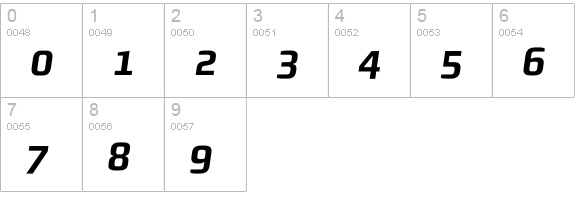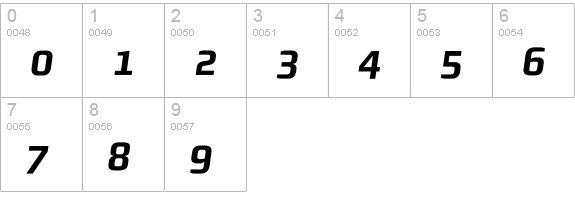
MorganSnExpert Bold Oblique is a strong, high-contrast, italic variant in the MorganSnExpert typeface family \xE2\x80\x94 well suited to headlines, attention-grabbing titles, and strong calls-to-action.
Introducing MorganSnExpert Bold Oblique font, a bold and distinctive typeface designed to make a powerful statement in any project. This font exudes confidence and sophistication with its sleek, modern design and elegant slanted style. Perfect for adding a touch of flair to your branding, advertising, or editorial designs. What's even better is that MorganSnExpert Bold Oblique font is available for free download at FontsMarket.com. You can easily access this versatile font and elevate your creative projects without any cost. Don't miss out on the opportunity to enhance your designs with this eye-catching and dynamic typeface. Download MorganSnExpert Bold Oblique font today and let your creativity shine!